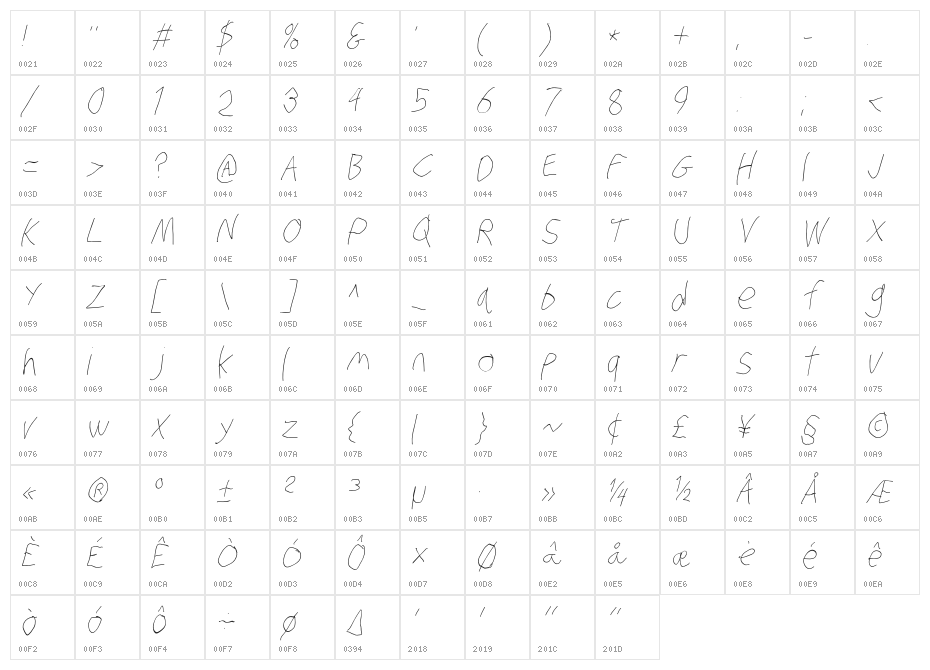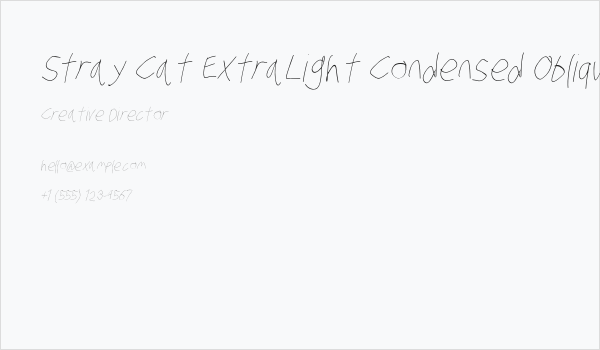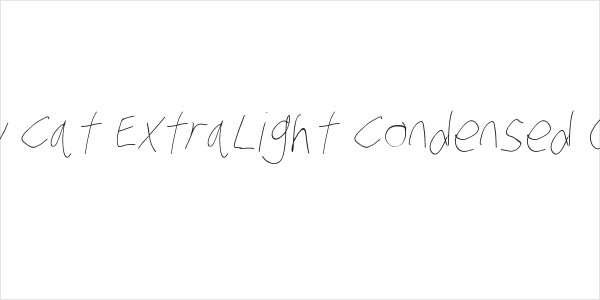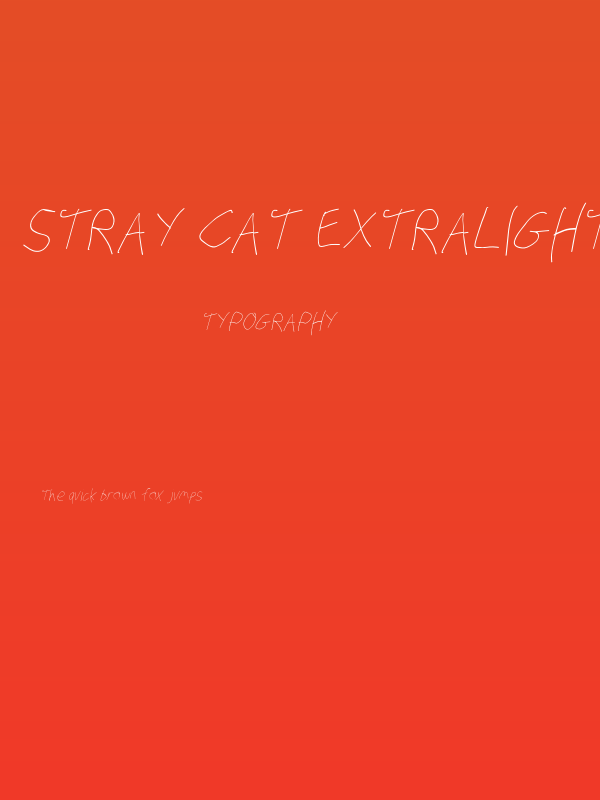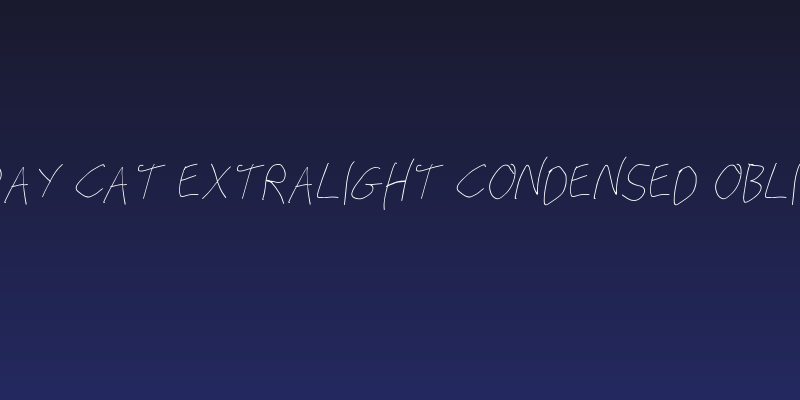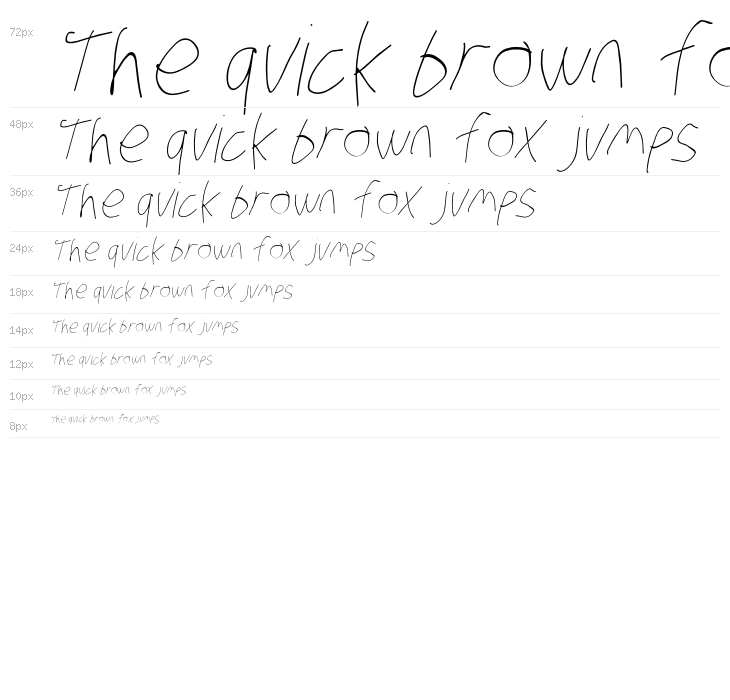
Stray Cat ExtraLight Condensed Oblique Font
Stray Cat ExtraLight Condensed Oblique Description
This font exhibits a playful and casual handwritten style, characterized by its light and airy strokes. The letters are slightly slanted, giving it an oblique appearance, which adds to its informal charm. The condensed nature of the font allows for efficient use of space, making it suitable for projects where space is limited. The characters are crafted with a consistent thinness, contributing to a cohesive look across both uppercase and lowercase letters. The numerals and special characters maintain the same whimsical style, ensuring uniformity throughout. This font's unique personality makes it ideal for creative and artistic projects.
| Use Case | Headlines, Creative projects, Informal communications |
| Proposed Projects | Ideal for greeting cards, personal blogs, children's books, and creative branding. |